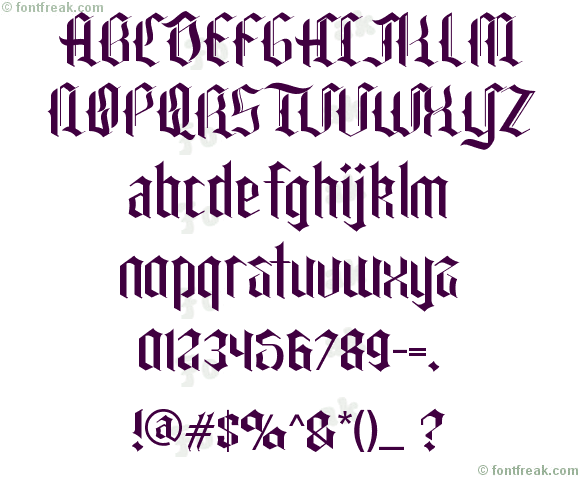
Carglos
Carglos, designed by Burhan Afif in 2020, is a striking display font that falls within the decorative category. This typeface showcases an elegant, gothic-inspired design that is both visually captivating and unique. The strokes exhibit a medium weight with a high contrast, creating a bold presence that captures attention. The lettering is intricately crafted, featuring sharp serifs and elegant curves that add a sense of sophistication. The spacing between characters is well-considered, allowing for legibility while maintaining the ornate essence of the font.
Carglos is particularly well-suited for a variety of creative applications. Its dramatic flair makes it an excellent choice for wedding invitations, where it can evoke romance and elegance. Additionally, it works beautifully for movie posters, lending an air of mystery and allure to film promotions. Restaurant menus can benefit from the font’s distinctive style, providing a touch of class that enhances the dining experience. Graphic designers might find it ideal for branding projects, especially for businesses looking to make a memorable impact. Content creators can also leverage Carglos in social media graphics, adding a visually striking element to their posts.
Targeting graphic designers, small business owners, and content creators, Carglos is a versatile typeface that speaks to those who value artistic expression in their work. The Carglos font free download makes it accessible for anyone looking to elevate their design projects without breaking the bank. In a crowded market of fonts, Carglos stands out due to its unique blend of elegance and boldness, making it a perfect choice for projects that require a touch of sophistication and creativity. Its distinctive character ensures that any design utilizing it will leave a lasting impression.